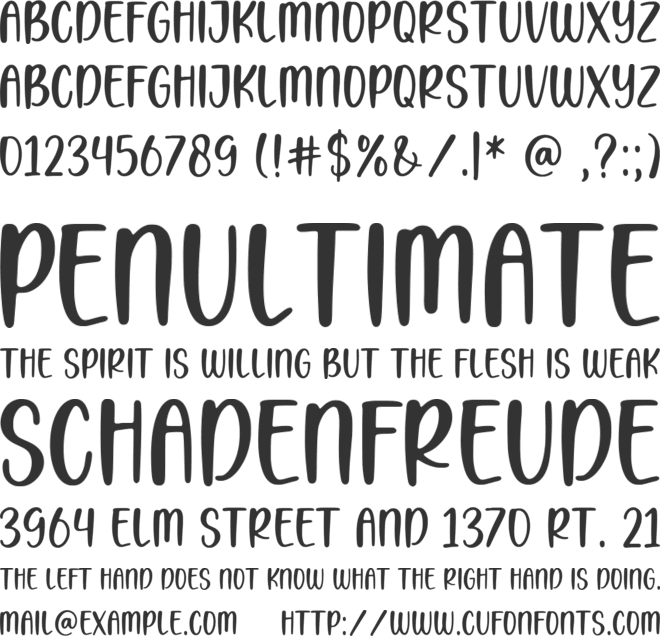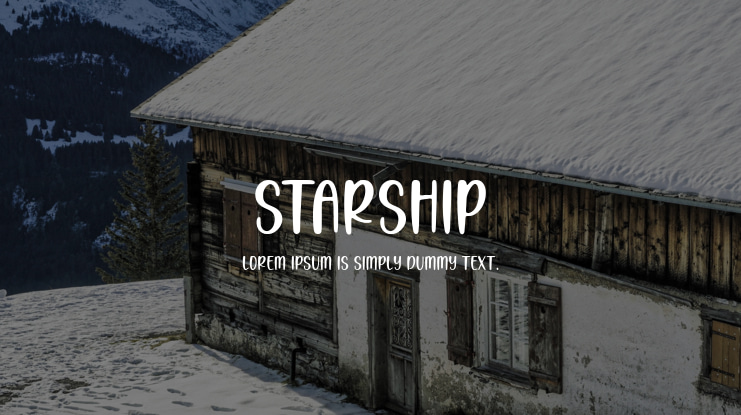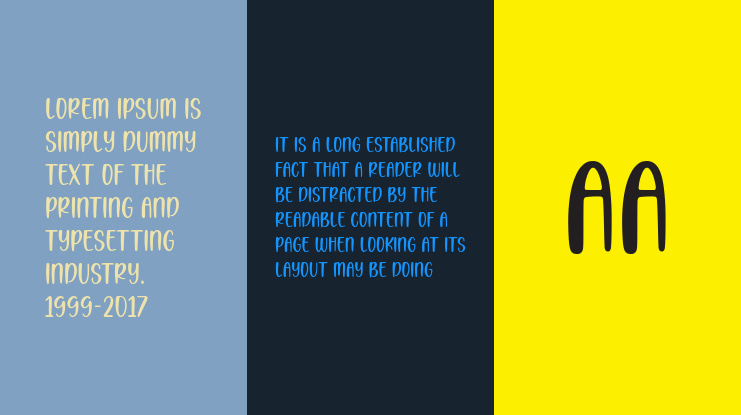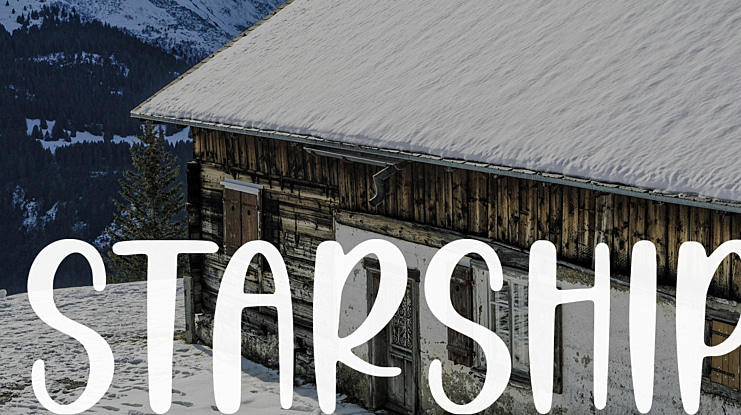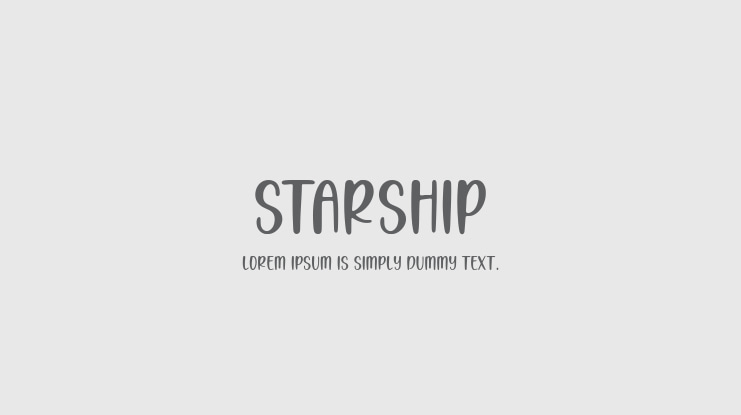
Starship Font
Introducing by Letterative Studio : Starship Font
Starship is a Handbrushed Font.
This fonts is ideal for crafting, branding and decorate your any project. This fonts are perfect for wedding invitation or your blog. Also with their help, you can create a logo or beautiful frame for your home. Or just use for your business, book covers, stationery, marketing, magazines and more.
- also multilingual support
- this font just ALL CAPS